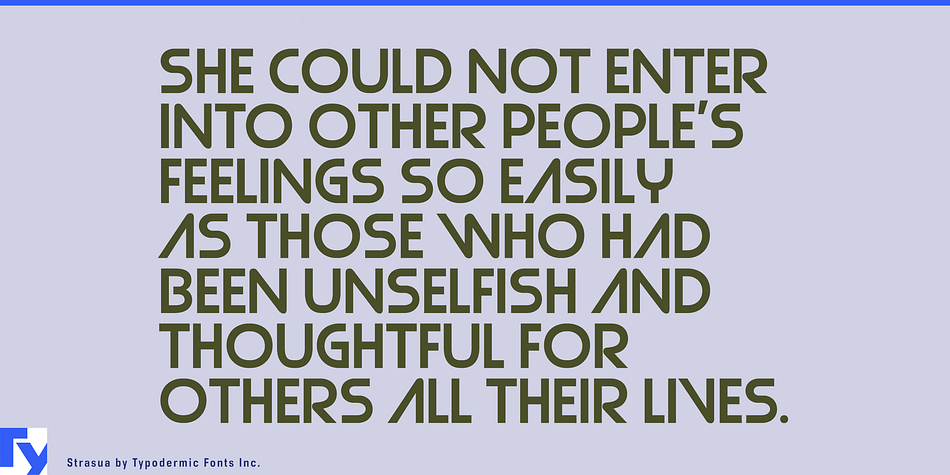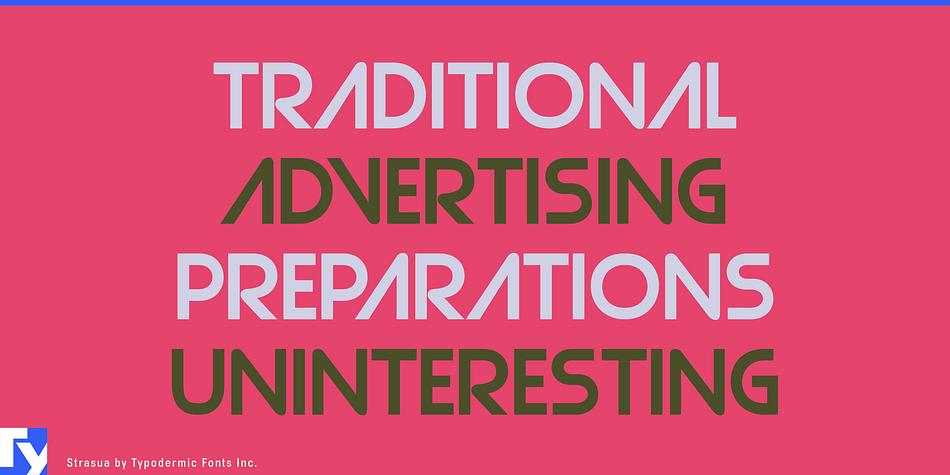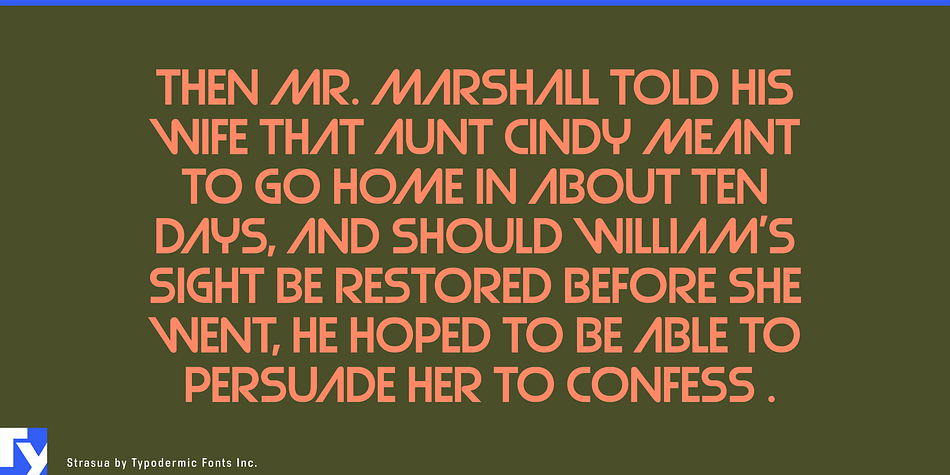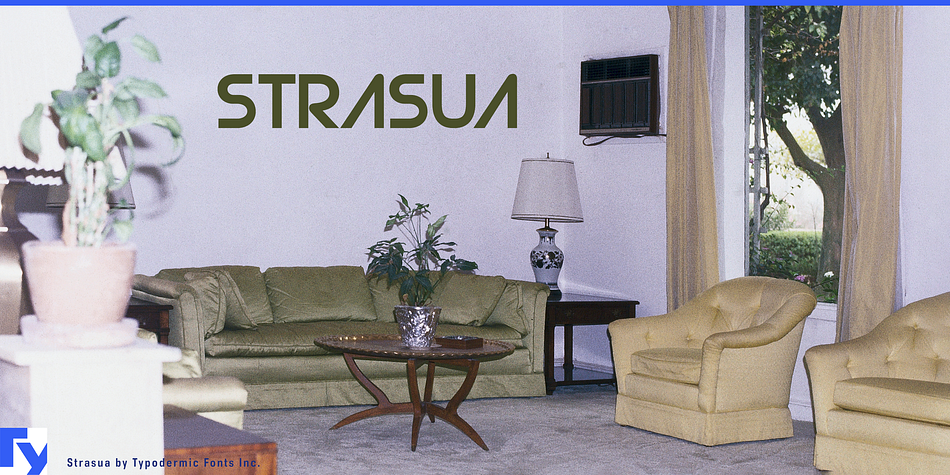
Strasua is a display sans font published by Typodermic Fonts Inc.
Strasua is a geometric headline font with a laid-back vibe. Its understated, minimalist letterforms and 1970s-inspired industrial design will lend your message a voice of tactical reason and serenity. Some Latin-based European writing systems are supported, including the following languages. Afaan Oromo, Afar, Afrikaans, Albanian, Alsatian, Aymara, Basque, Bemba, Bikol, Breton, Cape Verdean, Creole, Catalan, Cebuano, Chamorro, Chavacano, Danish, Dawan, Dholuo, Dutch, English, Estonian, Faroese, Fijian, Filipino, Finnish, French, Frisian, Friulian, Galician, Genoese, German, Guadeloupean Creole, Haitian Creole, Hiligaynon, Icelandic, Ilocano, Indonesian, Irish, Italian, Jamaican, Kaqchikel, Kikongo, Kinyarwanda, Kirundi, Lombard, Low Saxon, Luxembourgish, Makhuwa, Malay, Ndebele, Neapolitan, Norwegian, Novial, Occitan, Papiamento, Piedmontese, Portuguese, Quechua, Rarotongan, Romansh, Sango, Saramaccan, Sardinian, Scottish Gaelic, Shona, Sicilian, Silesian, Slovak, Slovenian, Somali, Sotho, Spanish, Swahili, Swazi, Swedish, Tagalog, Tetum, Tshiluba, Tsonga, Tswana, Tumbuka, Uzbek (Latin), Venetian, Võro, Walloon, Waray-Waray, Wayuu, Xhosa, Yapese, Zapotec Zulu and Zuni.